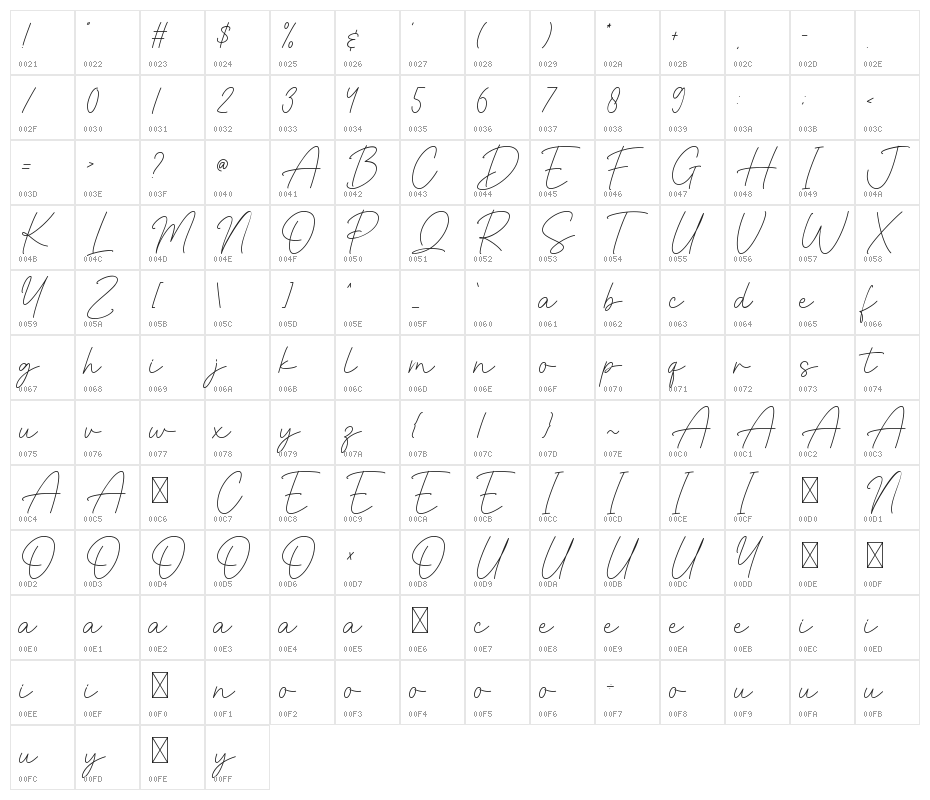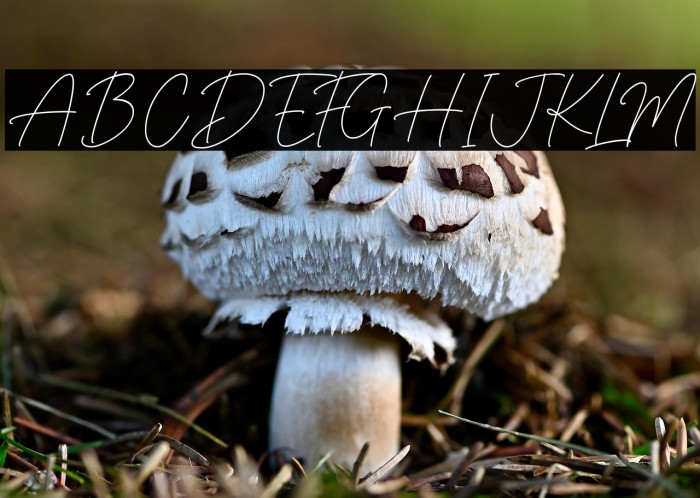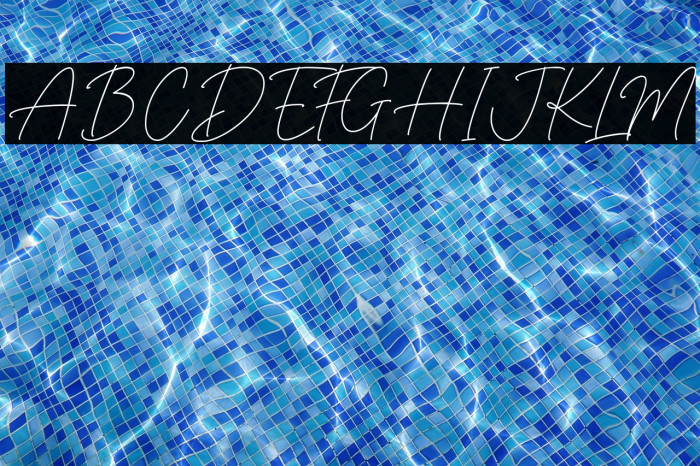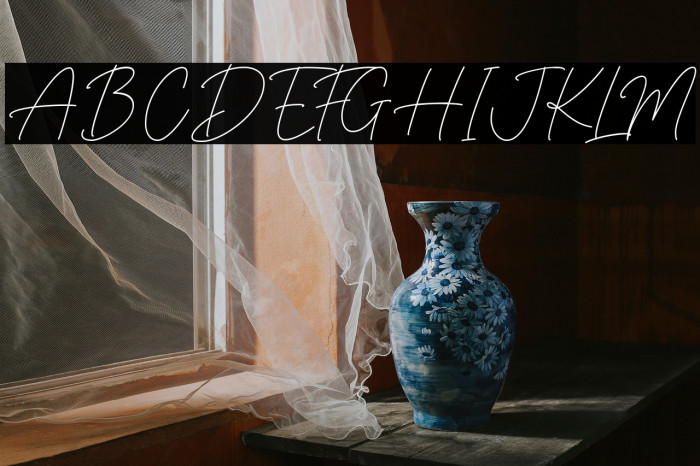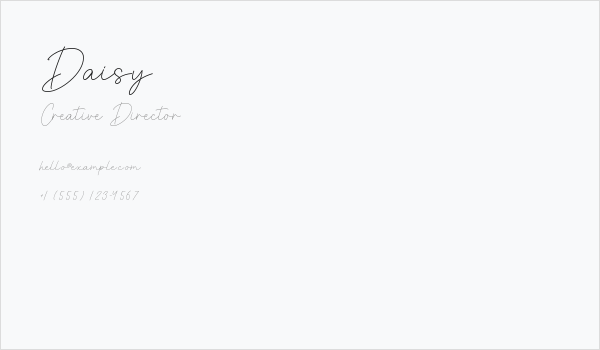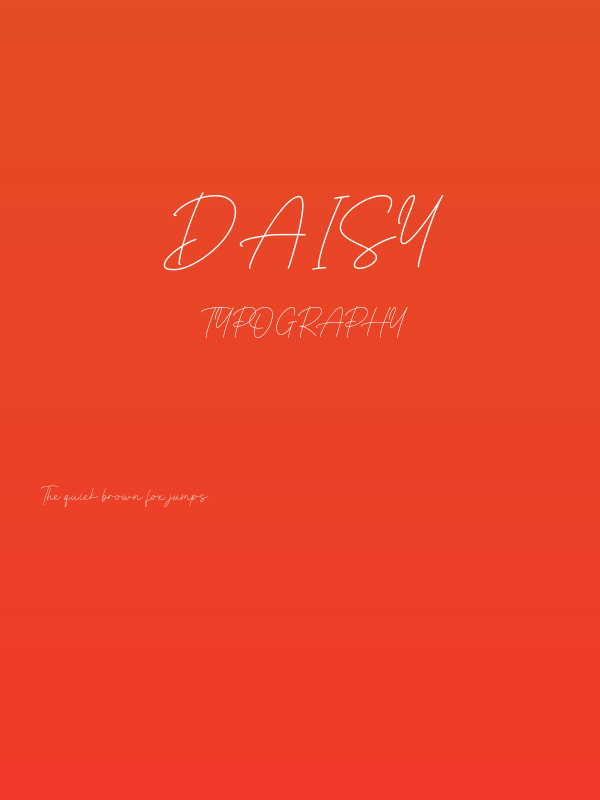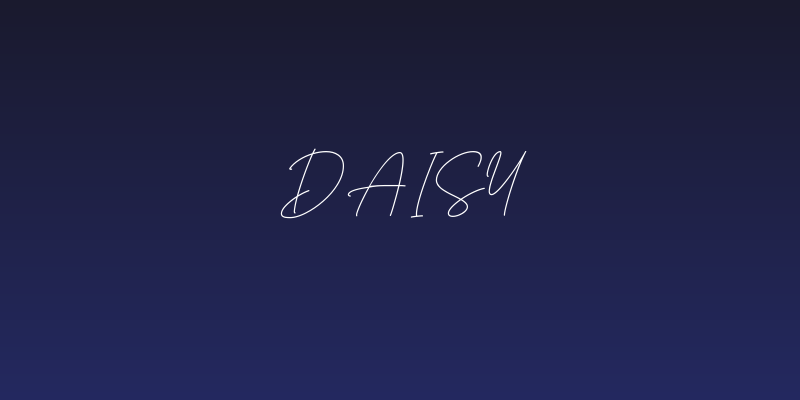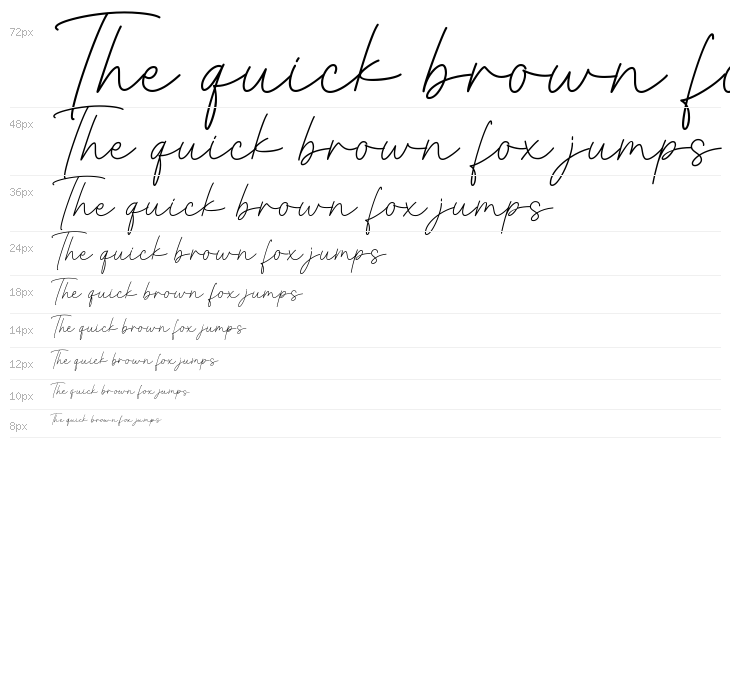
Daisy Font
Daisy Description
This font features a delicate and flowing script style, characterized by its elegant and smooth curves. The letters are connected in a cursive manner, giving it a handwritten appearance. The uppercase letters are slightly more formal, with a consistent slant and graceful loops, while the lowercase letters maintain a casual and approachable feel. The numerals and special characters are designed to match the fluidity of the alphabet, ensuring a cohesive look across all text. This font is perfect for adding a personal touch to any project, with its refined yet relaxed aesthetic.
| Overall Style | Elegant, Handwritten |
| Proposed Projects | Ideal for wedding invitations, greeting cards, personal branding, and elegant stationery. |